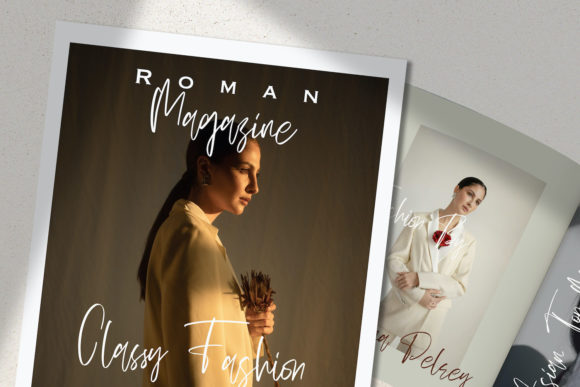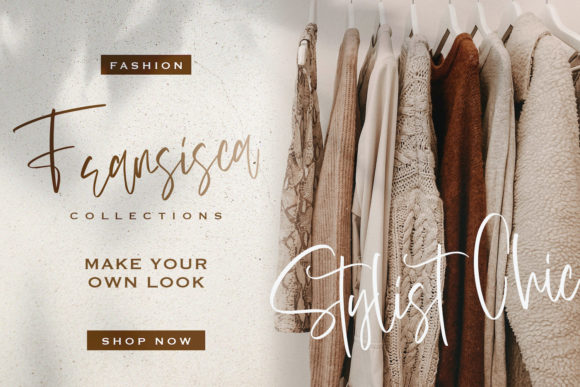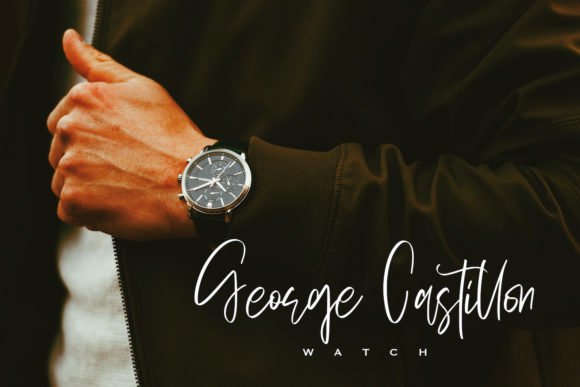
Introduction to Sellviny Queen Font
Sellviny Queen feels equally charming and elegant.
Key Features of Sellviny Queen Font
Why Choose Sellviny Queen Font?
Sellviny Queen Font offers exceptional quality and versatility, making it a valuable addition to your design toolkit. Whether you’re creating for personal projects or commercial use, Sellviny Queen Font delivers professional results.